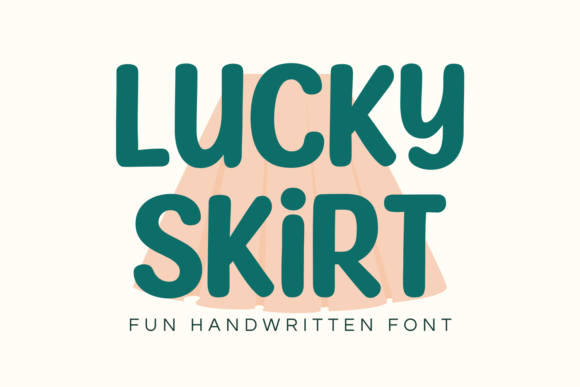
Step into the world of digital charisma with Lucky Skirt Font, a typographic masterpiece designed to infuse your creative projects with a dash of whimsy and a sprinkle of boldness. Its captivating curves and playful personality make it the perfect choice for those seeking a font that speaks volumes.
Lucky Skirt Font is more than just a font; it's an artistic expression that transforms your words into captivating visual statements. Its well-rounded characters, reminiscent of playful bubbles, dance across the screen, exuding an infectious energy that draws the eye and captivates the heart. Whether you're a seasoned designer or just starting your creative journey, Lucky Skirt Font is the perfect companion to elevate your work.
With its inherent versatility, Lucky Skirt Font effortlessly adapts to a myriad of design endeavors. Its playful nature shines through in blog posts, social media graphics, and digital marketing campaigns, adding a touch of lightheartedness and charm to your messages. Its bold presence commands attention in logos and branding materials, creating a lasting impression that resonates with your audience.
But Lucky Skirt Font's talents extend beyond the digital realm. Unleash its creative potential in print media, from eye-catching posters and brochures to captivating book covers and product packaging. Its ability to elevate ordinary text into artistic expressions knows no bounds.
Join the creative revolution and embrace Lucky Skirt Font, the ultimate display font that ignites your imagination and transforms your words into visual masterpieces. Let its playful spirit dance through your designs and captivate your audience with its undeniable charm. Download Lucky Skirt Font today and embark on a creative journey like no other.